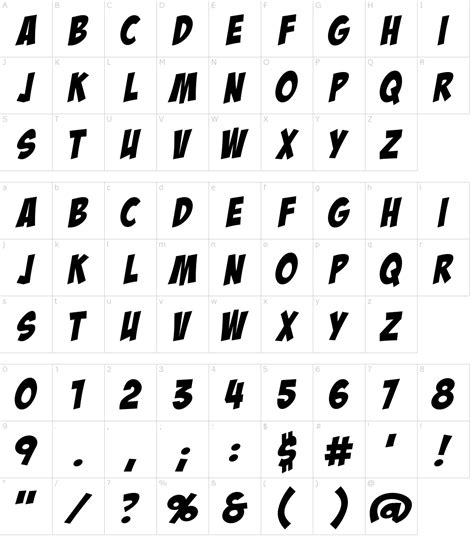
Badaboom Pro BB Font Family by Blambot Font Bros
Bada Boom Font. A decorative typeface with 2 styles, available from adobe fonts for. Web explore badaboom designed by nate piekos at adobe fonts.